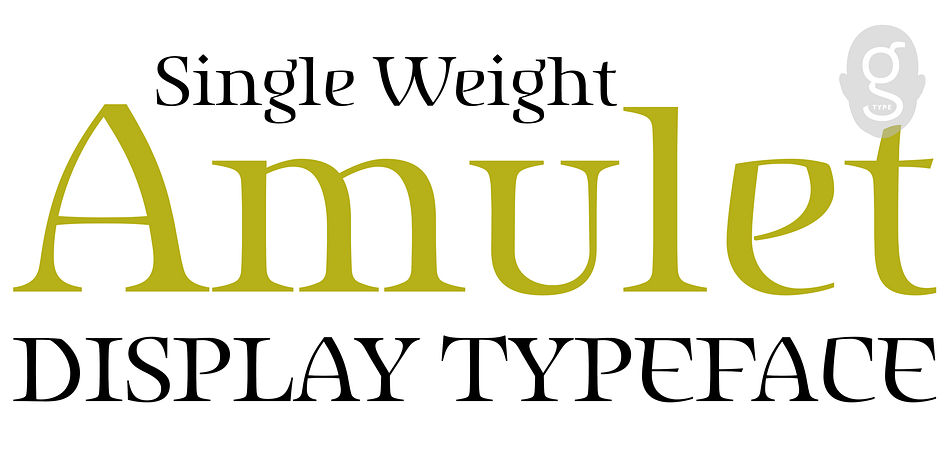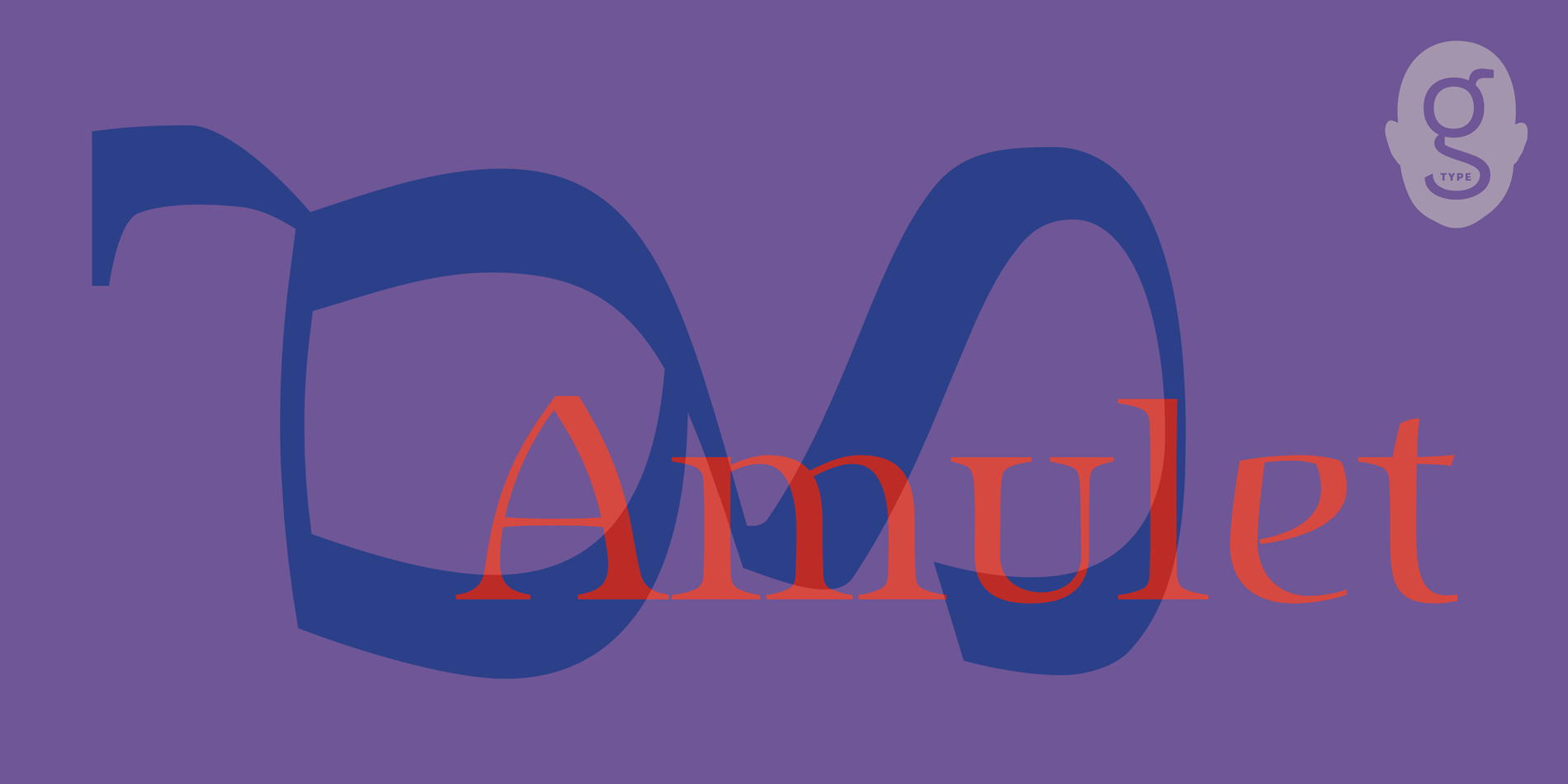
Amulet
Designed by Nick Cooke, Amulet is a display serif, exotic and serif font family published by G-Type.
Amulet evolved after a trip to Dublin, Ireland. It has a Celtic calligraphic influence which must have subconsciously come from looking at ancient manuscripts and the Book of Kells in Trinity College.
Amulet is a distinctive headline font with Gaelic roots, ideal for posters, film titles and guaranteed to lend your designs a scribal, monastic look and feel.
An uncial font with a twist, Amulet has a definite air of spiritual mysticism about it and in a certain light an almost Arabic flavour.